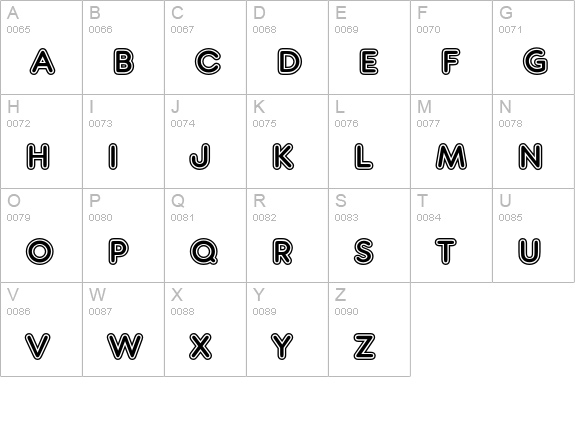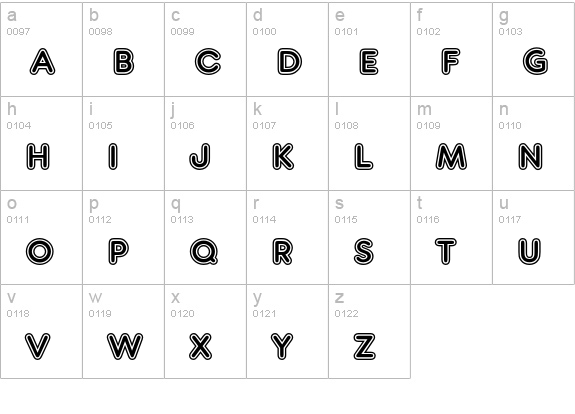
FrankfurterEF-Inline is a stylish and modern font that exudes a unique charm and sophistication. Its sleek lines and elegant curves make it a versatile choice for a wide range of design projects. The inline style adds a touch of creativity and flair, making it stand out from the crowd. What's even better is that FrankfurterEF-Inline is completely free to download at FontsMarket.com. This means you can easily access this stunning font and use it in your projects without any cost. Whether you're creating a logo, website design, or any other graphic design project, FrankfurterEF-Inline is sure to make a statement. Download it today and elevate your designs with this eye-catching font.